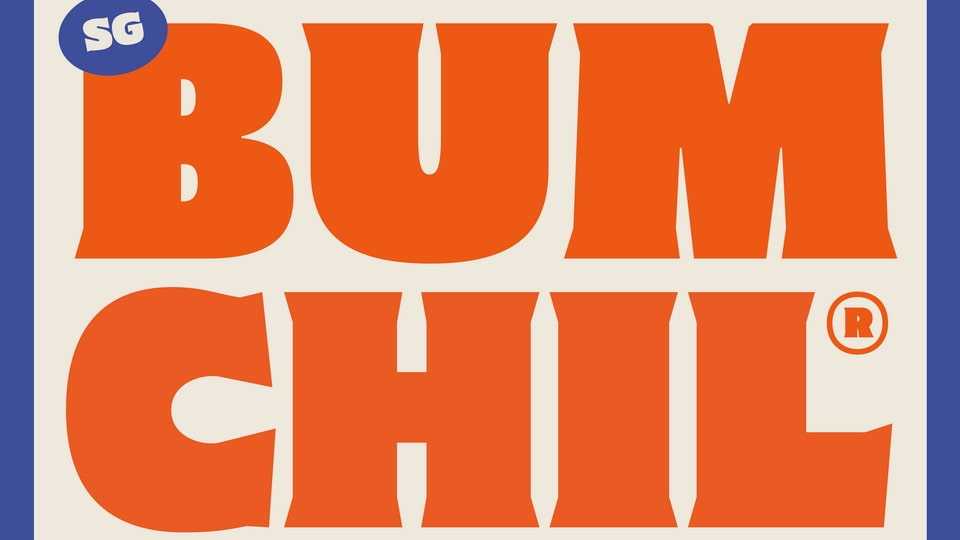
Download SG Bumchil font, a bold a display typeface with 4 various styles for your needs. Bumchil has uppercase and lowercase letters. It’s fun, pop, and playful!
Designer: Studio Gulden